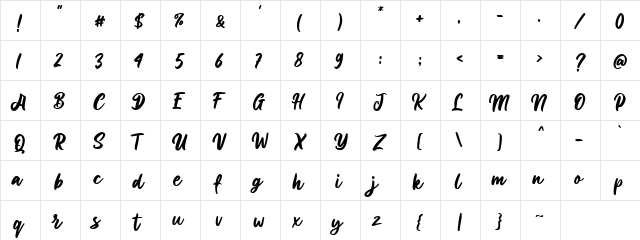
Allisya Regular
| Foundry | Weape Studio |
| Designer | Wahyu Andi |
Design Context for Allisya Typeface
Allisya is a composed and adaptable typeface that performs quietly and consistently across a wide range of design contexts.